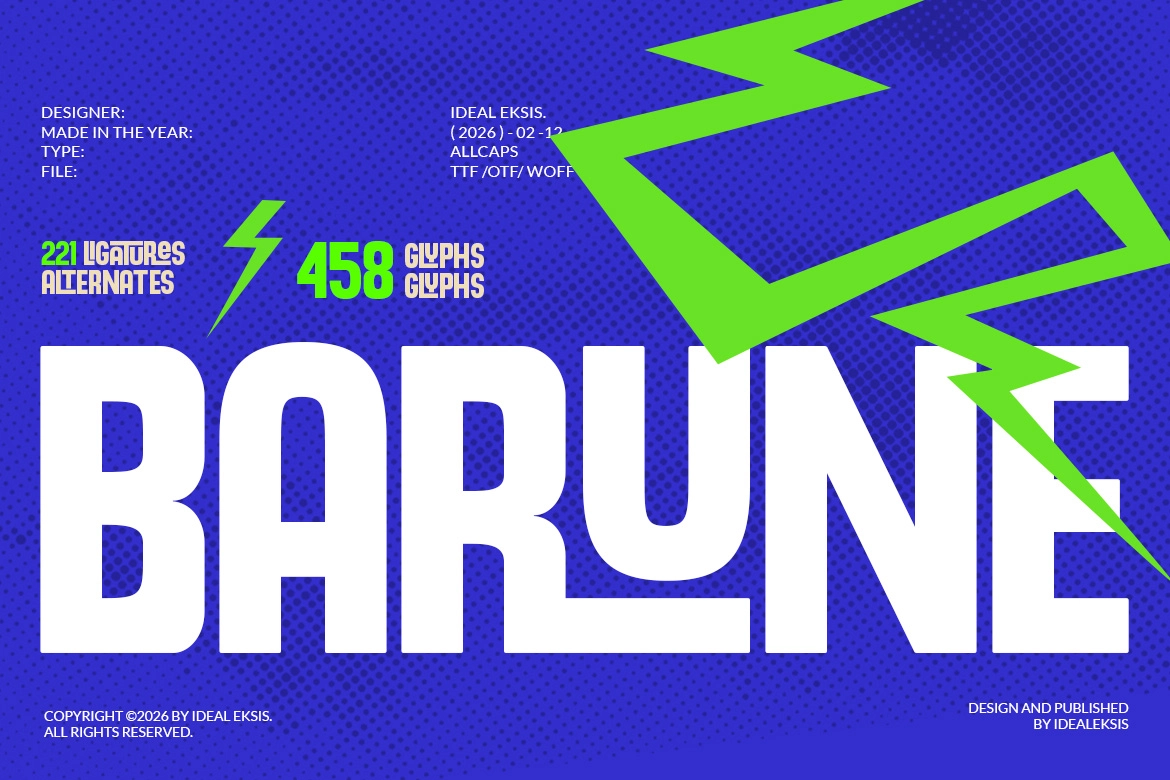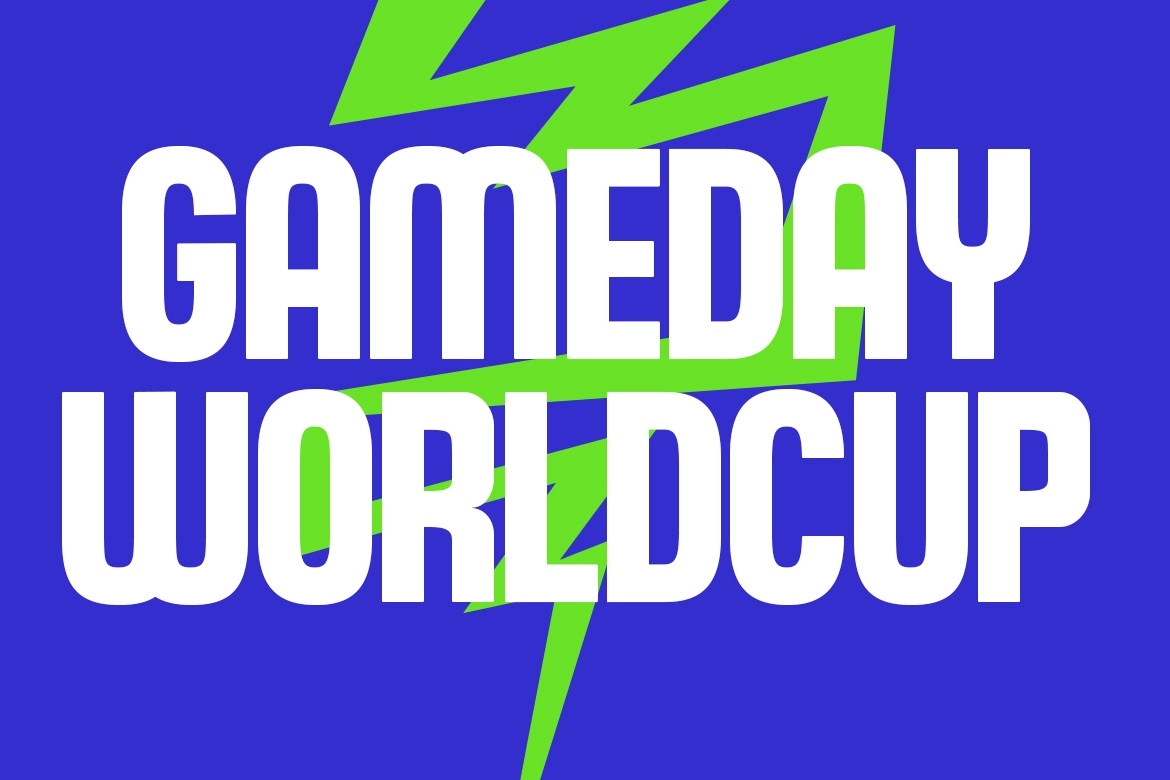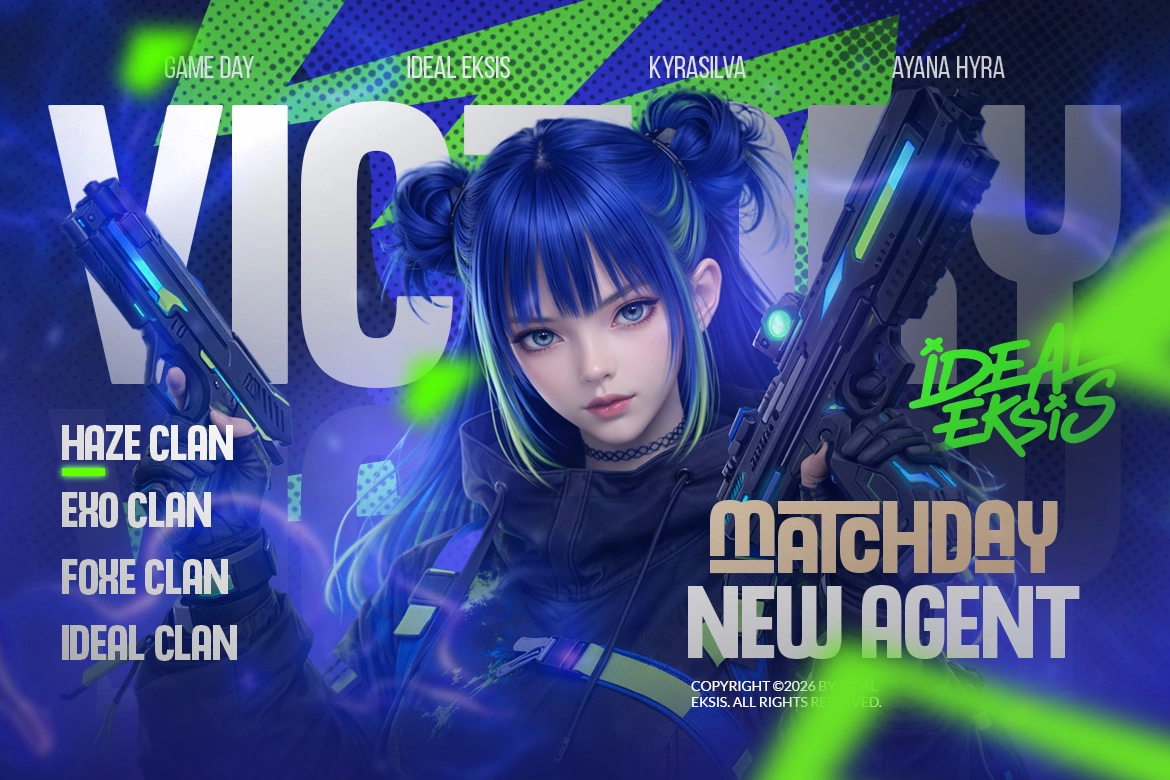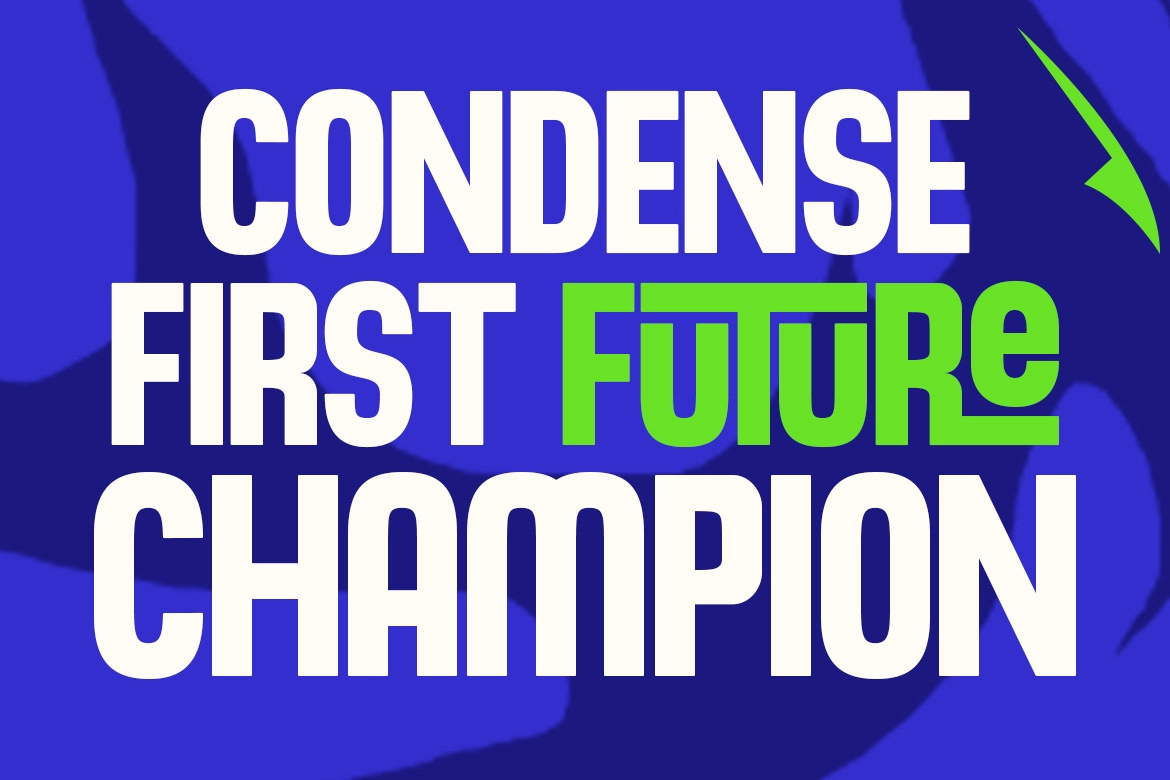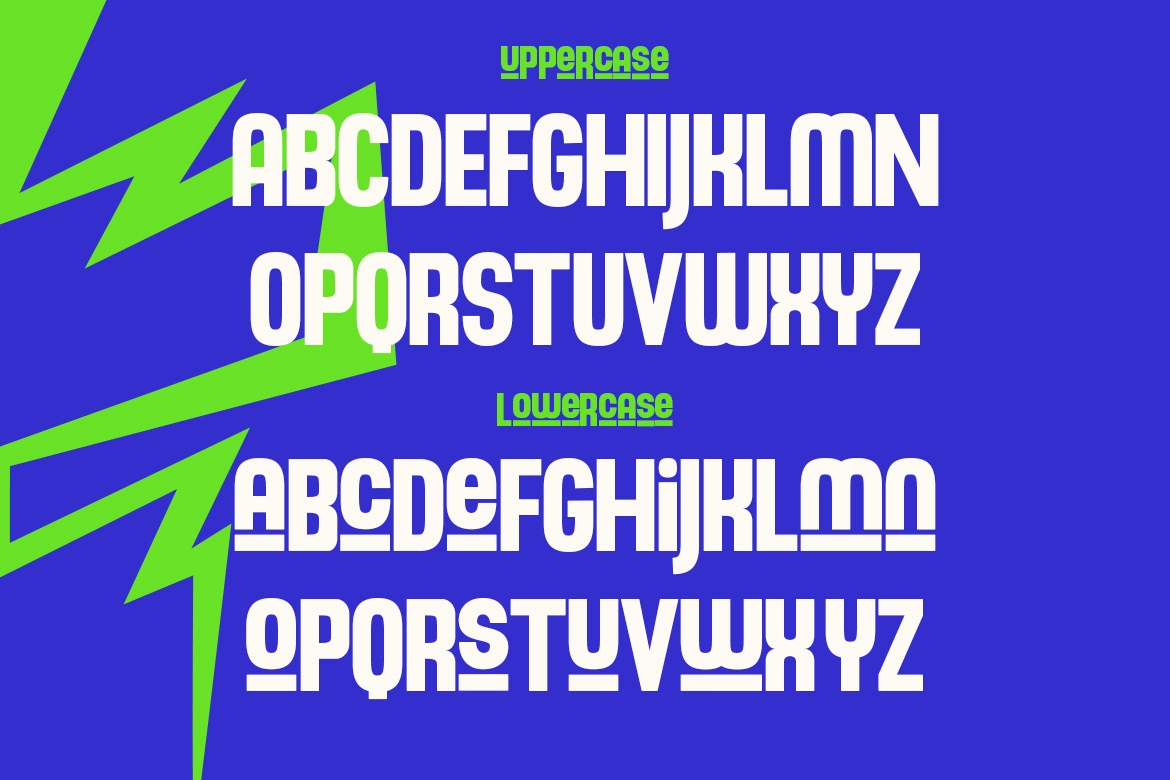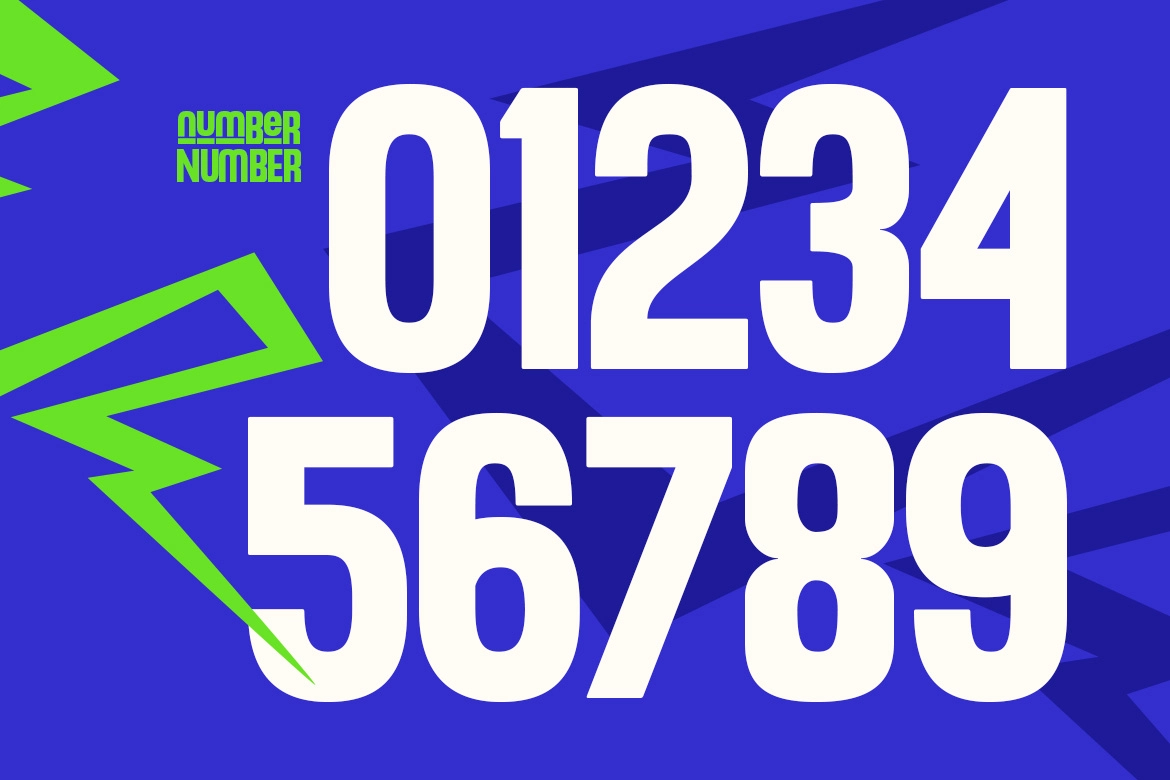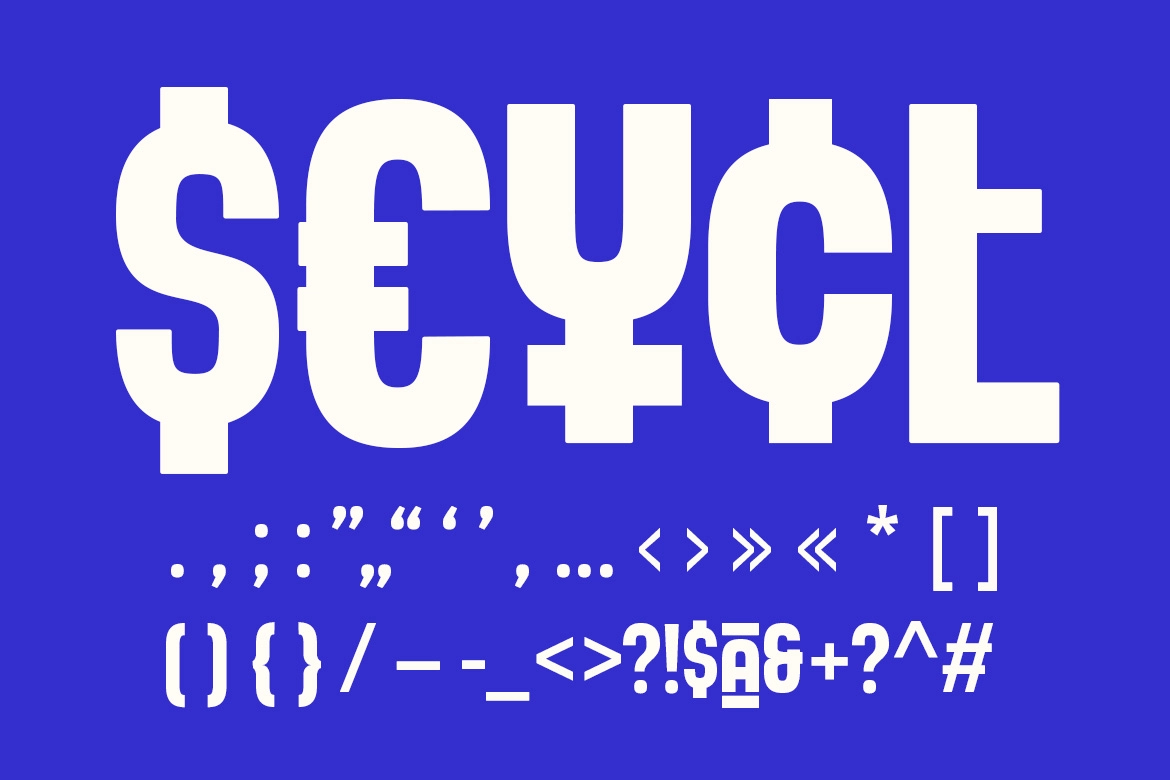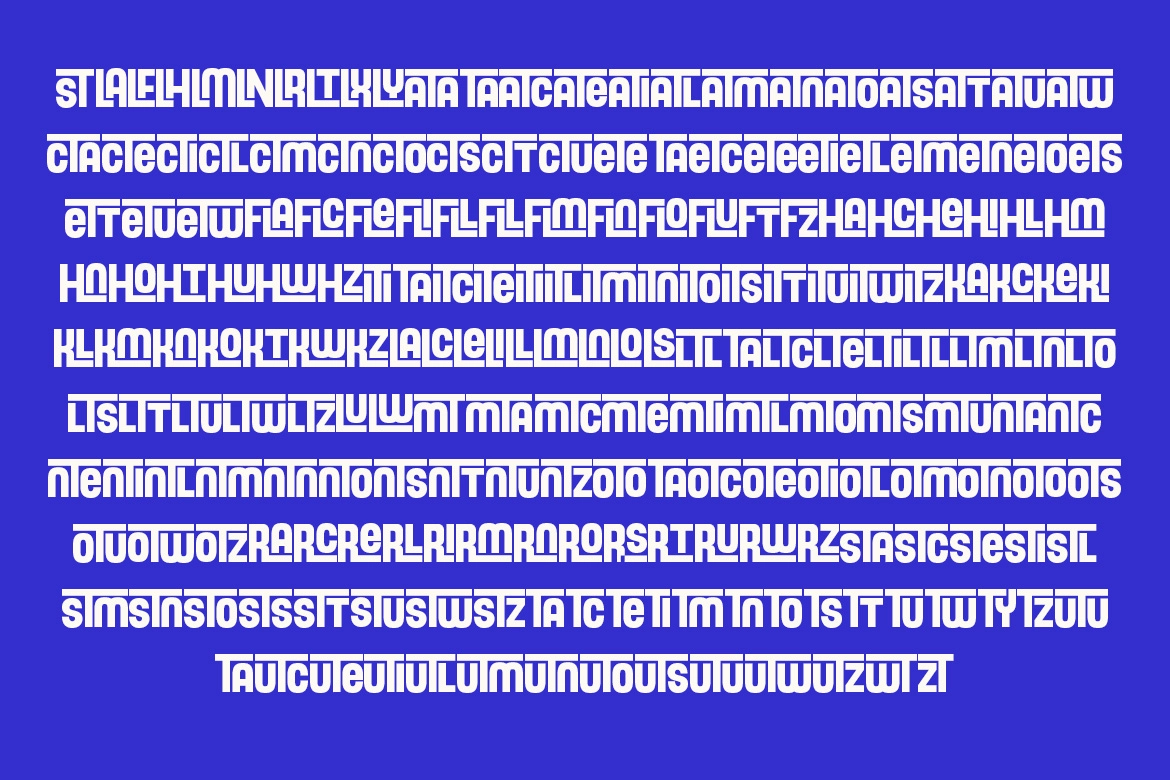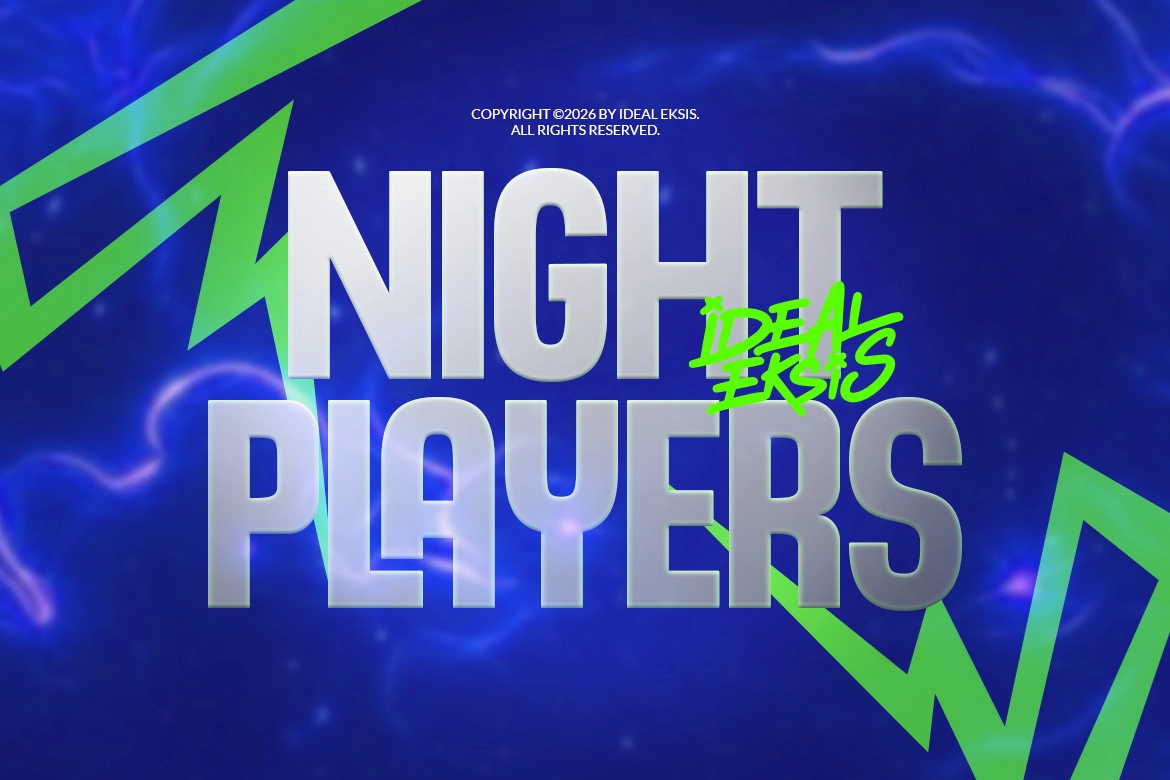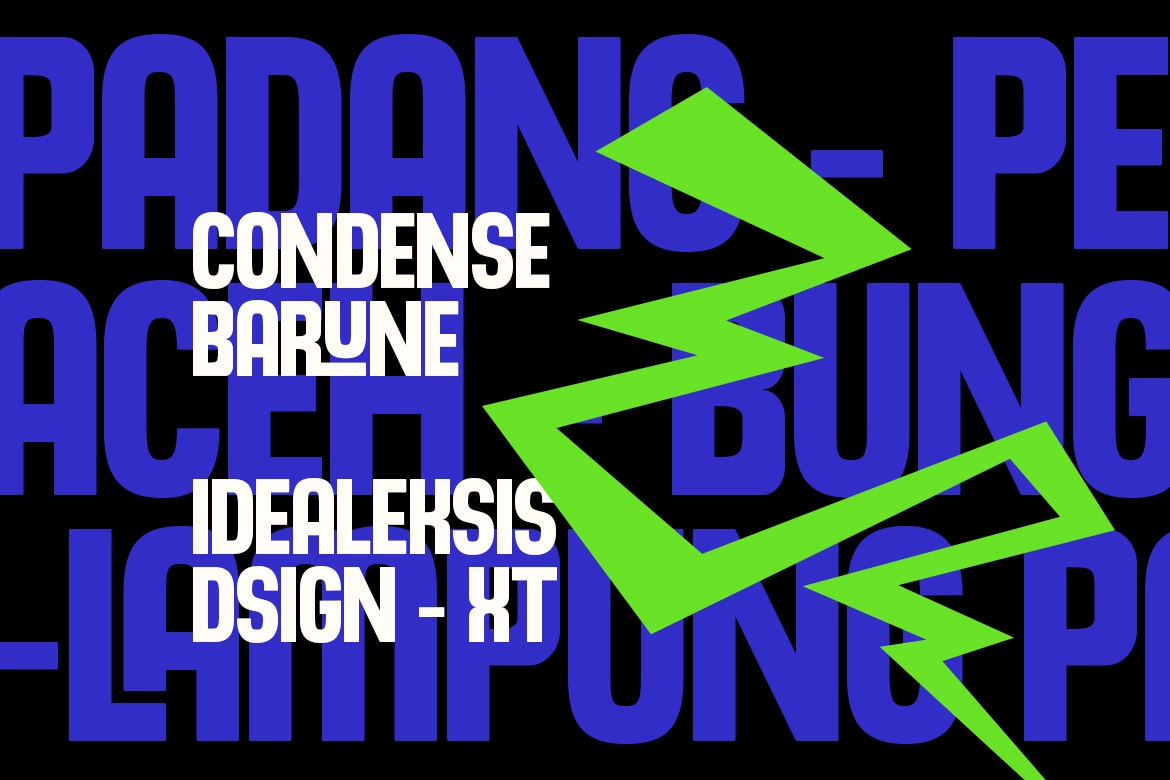
Barune - Condensed Sport Font
Barune – Condensed Sport Font is a powerful ultra-bold display typeface built for high-impact typography. With its condensed proportions, massive weight, and tight letter spacing, Barune delivers a strong, aggressive presence that instantly captures attention. The solid geometric structure and compact shapes create a dynamic and energetic look, making the font perfect for projects that demand strength, speed, and visual intensity.
Designed for modern sports and action-driven branding, Barune performs exceptionally well in headlines, logos, posters, and promotional graphics. Its bold character ensures excellent readability in large formats while maintaining a striking visual style suited for esports branding, motorsport graphics, product promotions, and social media visuals.
- Uppercase (All Caps)
- Alternates & Ligatures
- Numerals & Punctuation
- 458 Glyphs